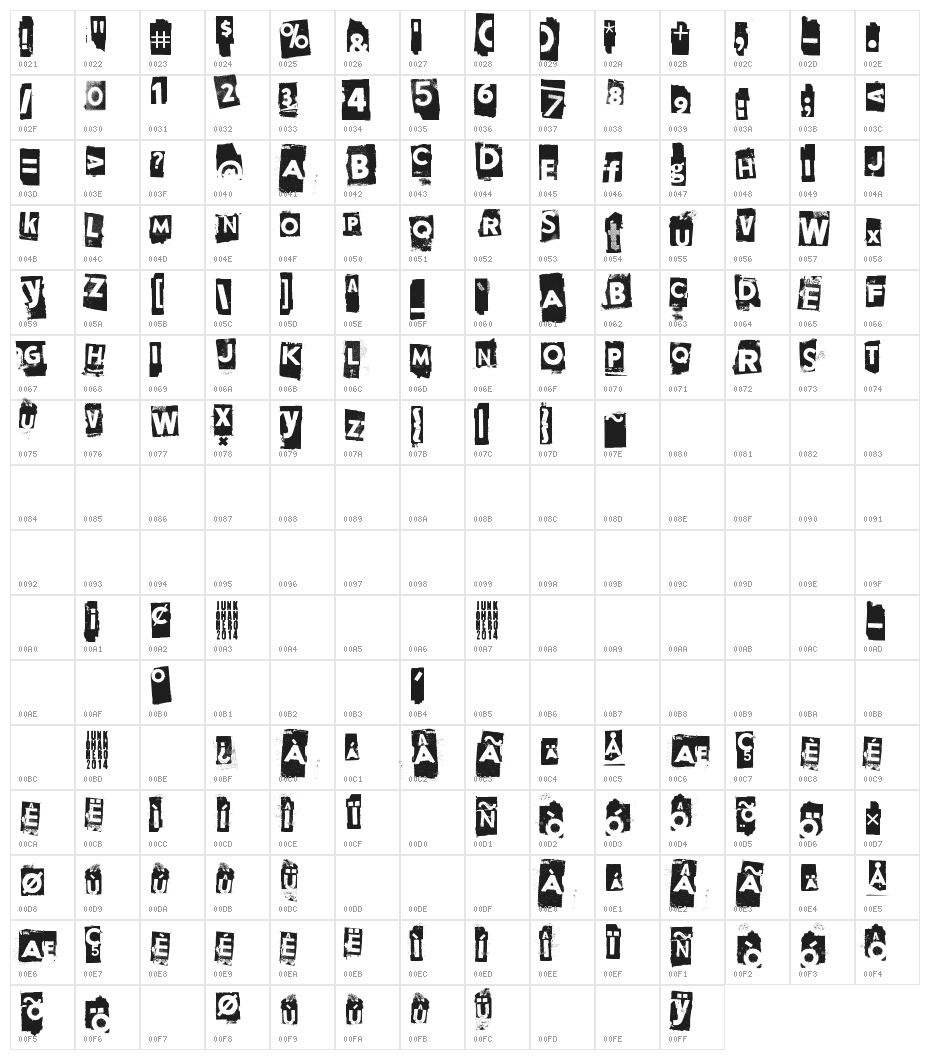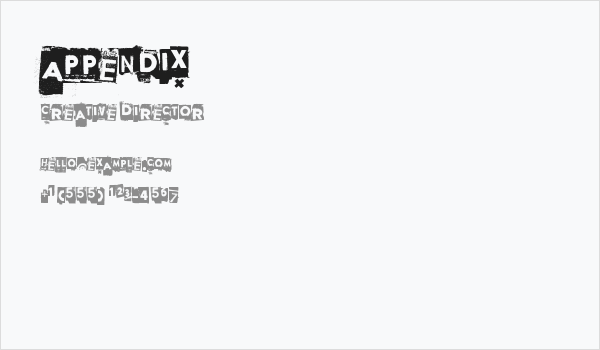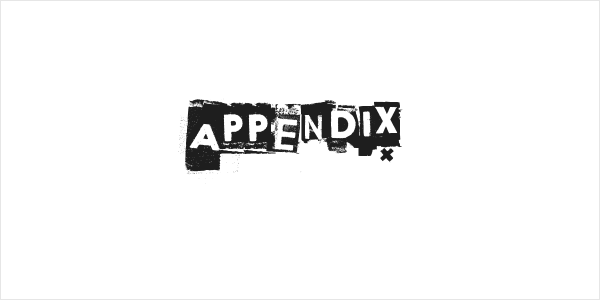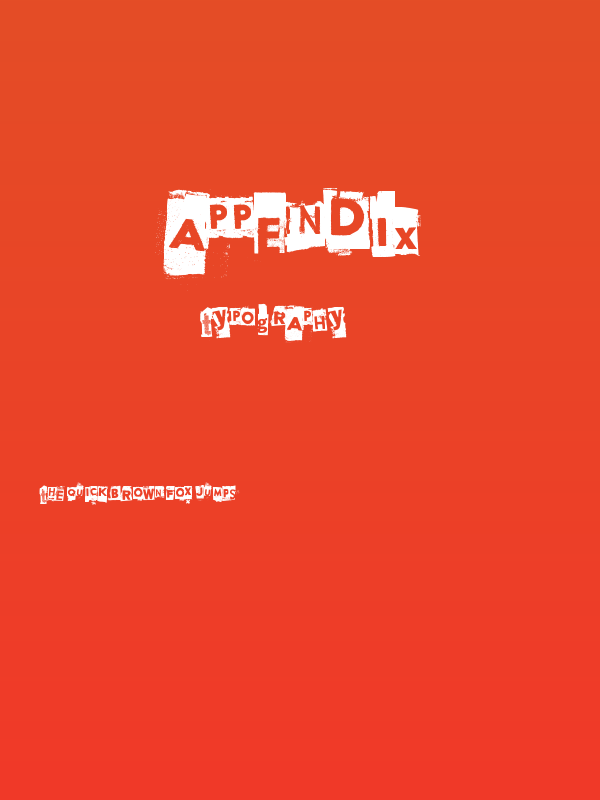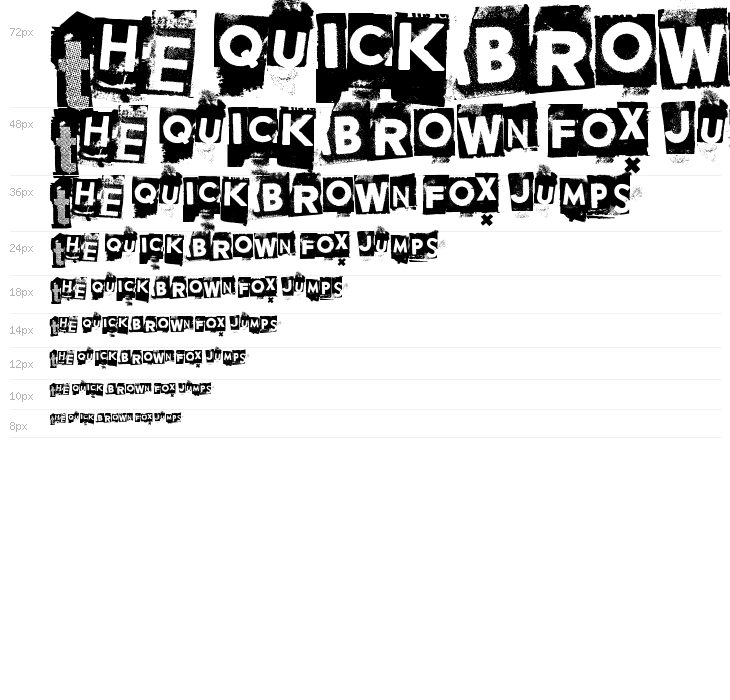
Appendix Font
✎ Distorted Eroded
Appendix Description
This font exhibits a bold, distressed style reminiscent of cut-out letters from magazines or newspapers. Each character is uniquely framed with rough, uneven edges, giving it a raw, edgy appearance. The letters are uppercase and lowercase, with numbers and special characters included, all maintaining a consistent, grunge-like aesthetic. The high contrast between the black background and white letters enhances readability while preserving the chaotic, rebellious vibe. This font is perfect for projects that require a strong, impactful visual statement, such as posters, album covers, or any design that aims to capture attention with a gritty, urban feel.
| Proposed Projects | Ideal for posters, album covers, and designs needing a gritty, urban aesthetic. |